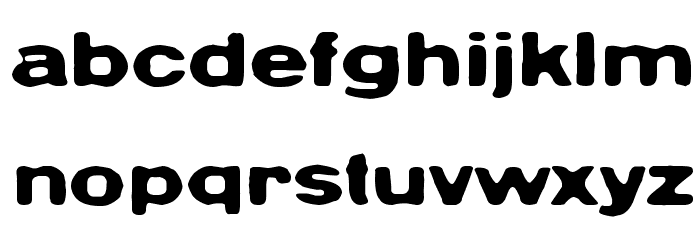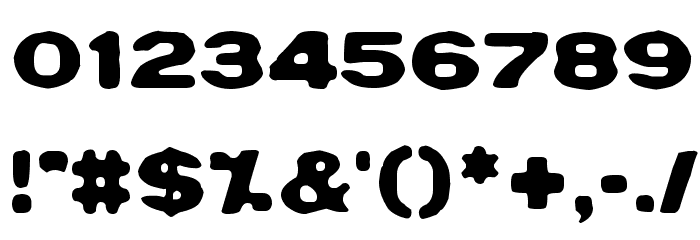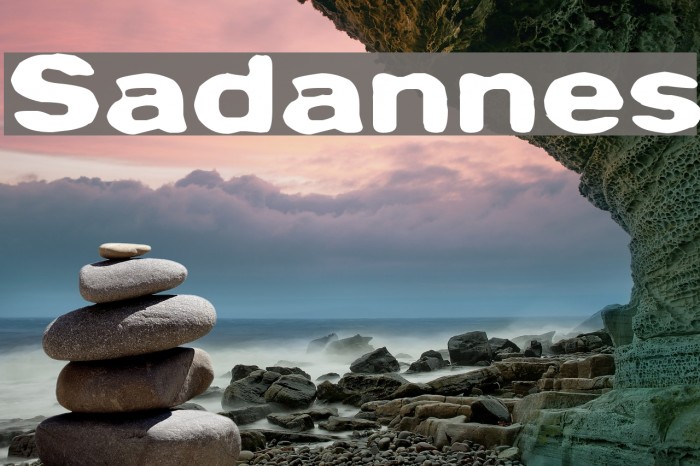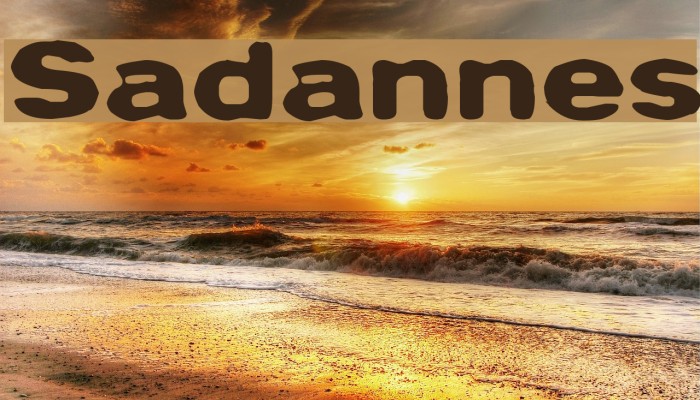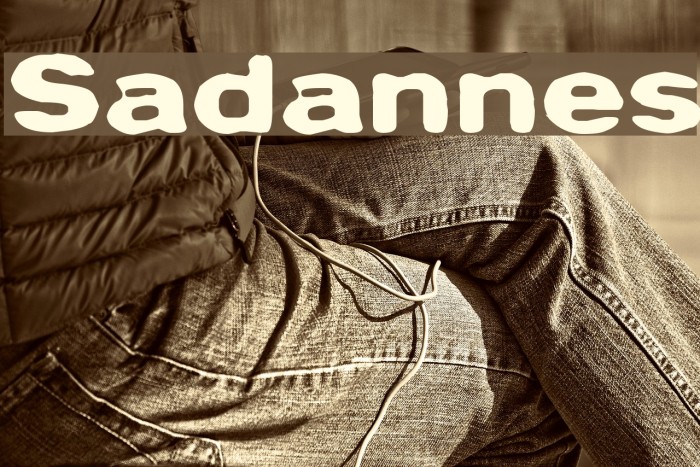
Sadannes Font
This font features bold, rounded characters with a playful and robust appearance. The letters are uniformly thick, giving them a strong presence on the page. The rounded edges and slightly irregular shapes add a whimsical touch, making it suitable for creative and informal designs. The numbers and special characters maintain the same bold and rounded style, ensuring consistency across all elements. This font is particularly eye-catching and can be used to draw attention to key text elements.
A bold, rounded font with a playful and robust style.
- Proposed Projects: Ideal for children's books, playful branding, posters, and creative advertisements.
- Overall Style: Playful, Robust, Whimsical